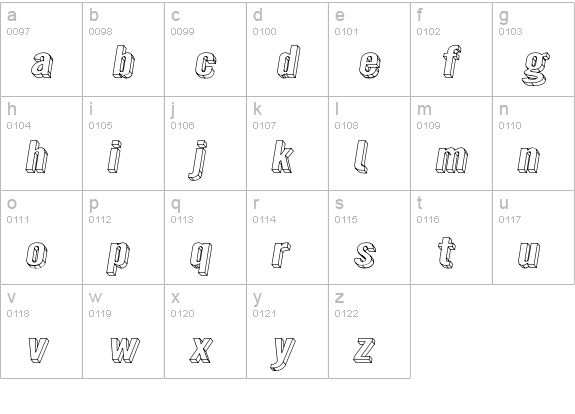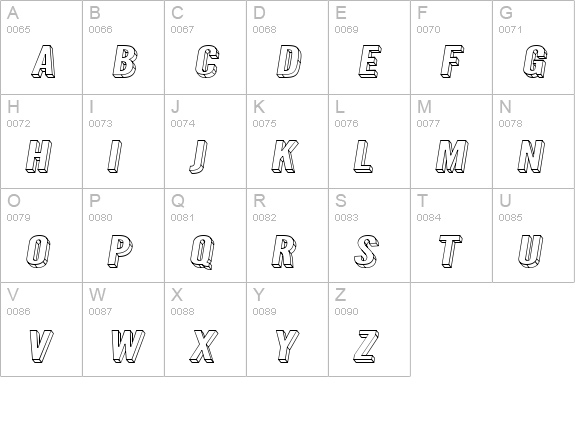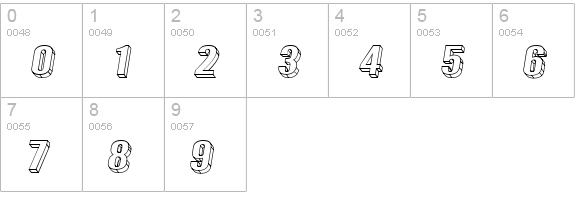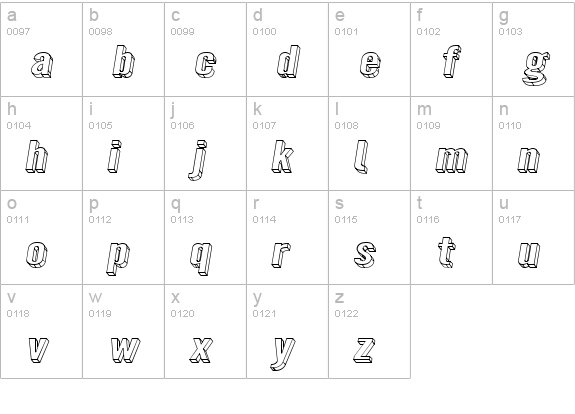
Warsaw Gothic SuperExtended Oblique 3D is a distinctive, italic variant in the Warsaw typeface family \xE2\x80\x94 well suited to design and typography projects.
The Warsaw Gothic SuperExtended Oblique 3D font is a mesmerizing display of elegance and boldness. Its intricate design combines the timeless appeal of Gothic letterforms with a modern twist, creating a stunning visual impact that captures attention instantly. This font boasts an extended width, allowing for maximum impact and making it perfect for headlines, logos, and other prominent design elements. The oblique slant adds a sense of dynamism and movement, further enhancing its striking appearance. The 3D effect adds depth and dimension, giving your designs a realistic and eye-catching quality. With its sharp edges and strong lines, the Warsaw Gothic SuperExtended Oblique 3D font exudes confidence and power. It is a versatile typeface that can be used across a wide range of design projects, from posters and advertisements to packaging and branding materials. One of the best things about the Warsaw Gothic SuperExtended Oblique 3D font is that it is freely available to download at FontsMarket.com. This means that you can access and use this incredible font without any limitations or restrictions. Whether you're a professional designer or a creative enthusiast, this font will undoubtedly elevate your designs to new heights. So, if you're looking for a font that combines the timeless elegance of Gothic letterforms with a modern and dynamic twist, look no further than the Warsaw Gothic SuperExtended Oblique 3D font. Download it for free at FontsMarket.com and unleash your creativity with this captivating typeface.